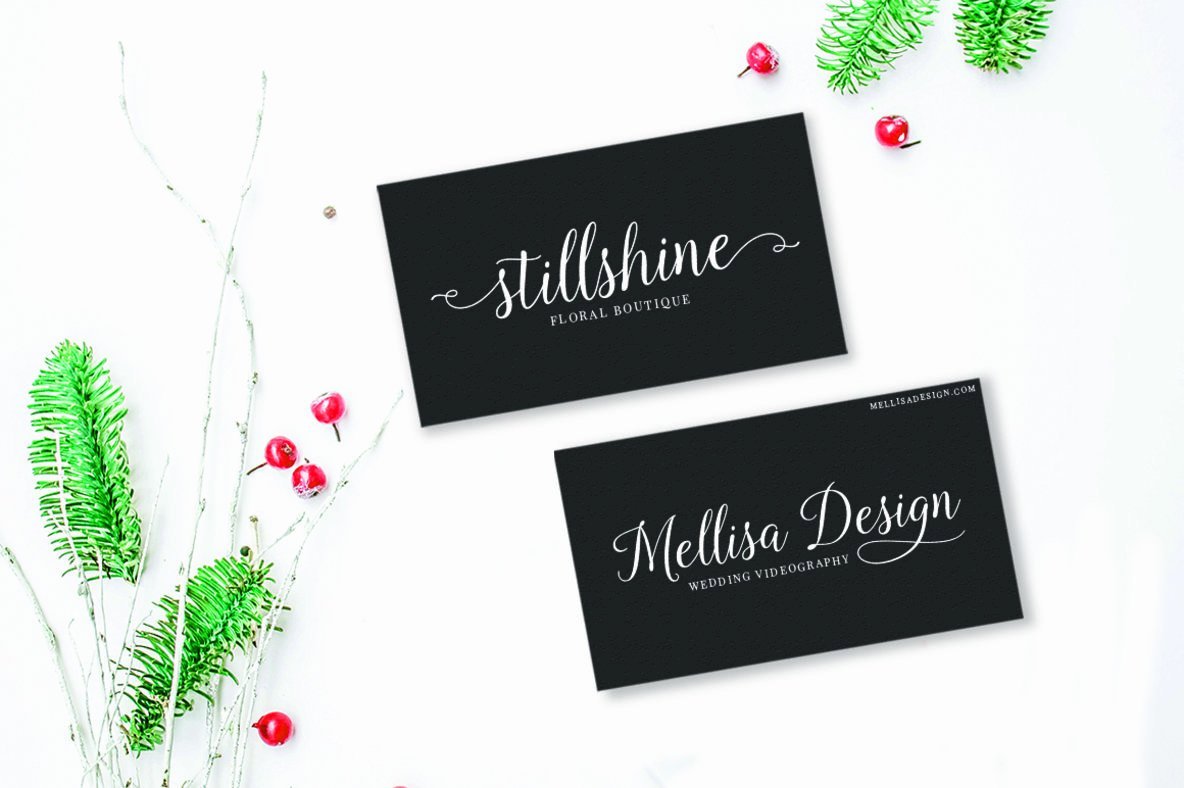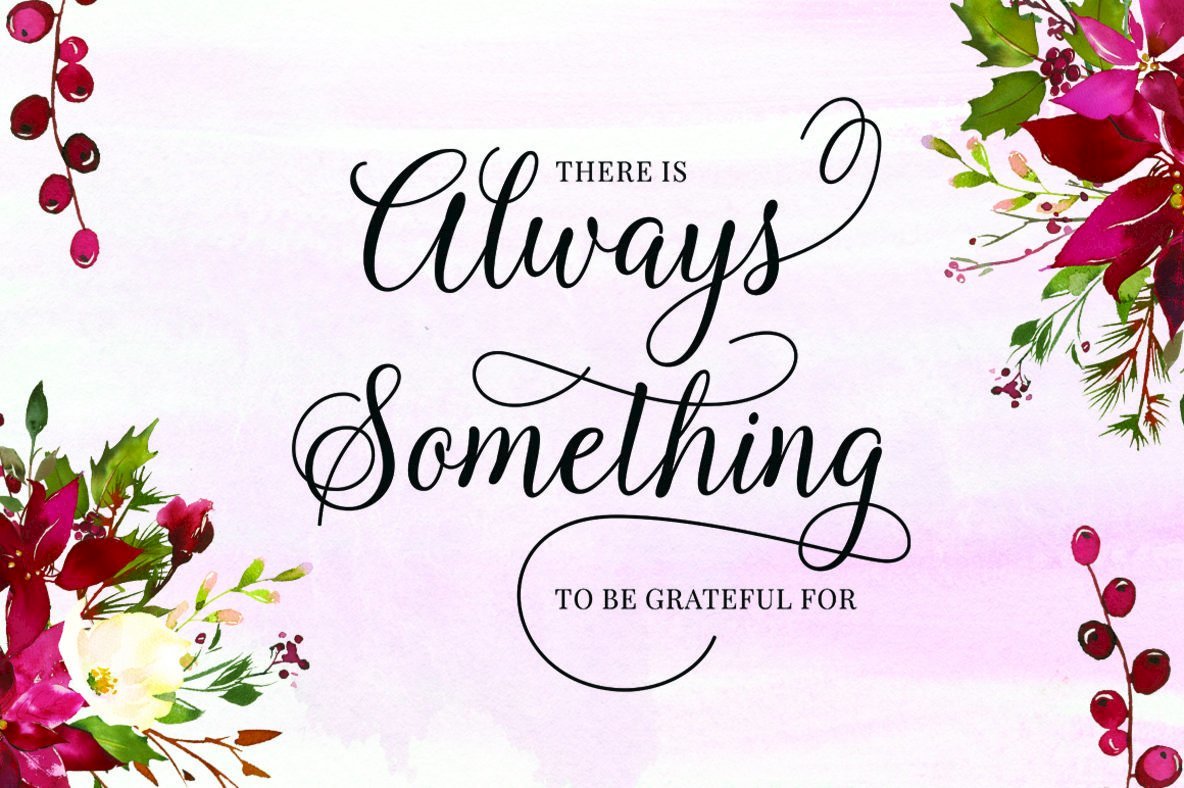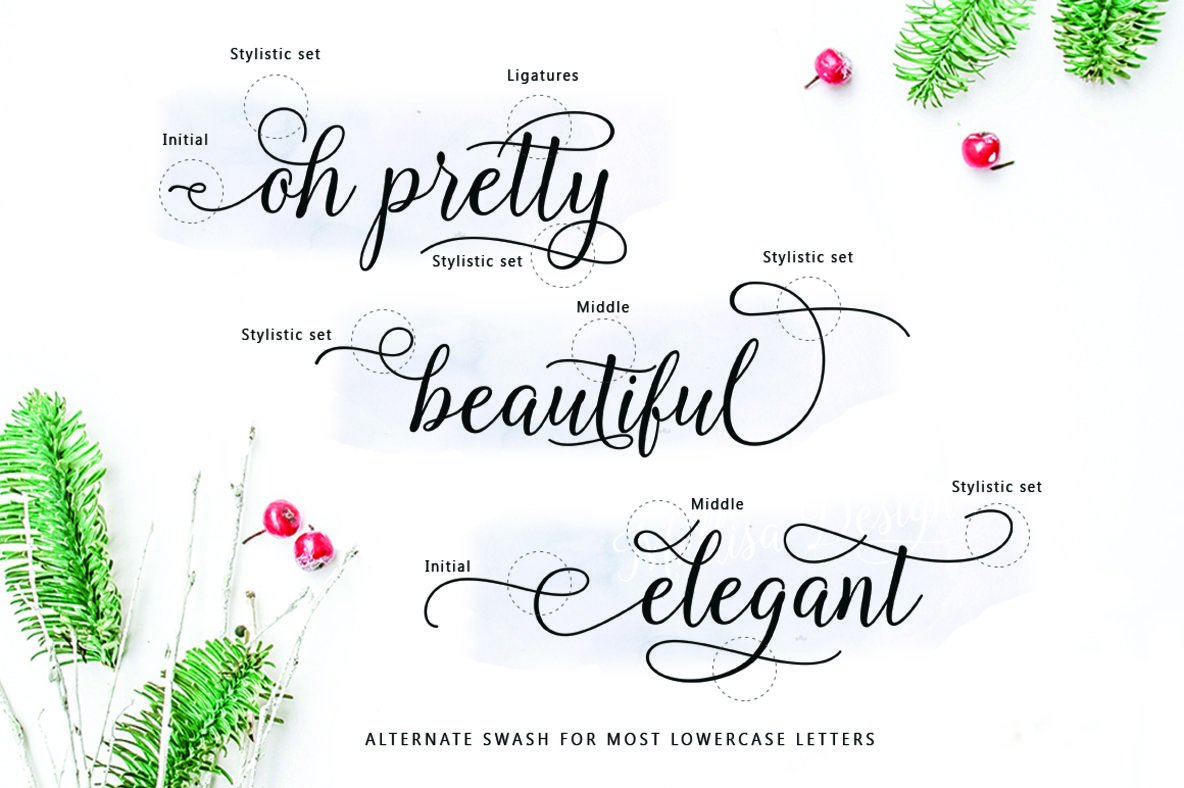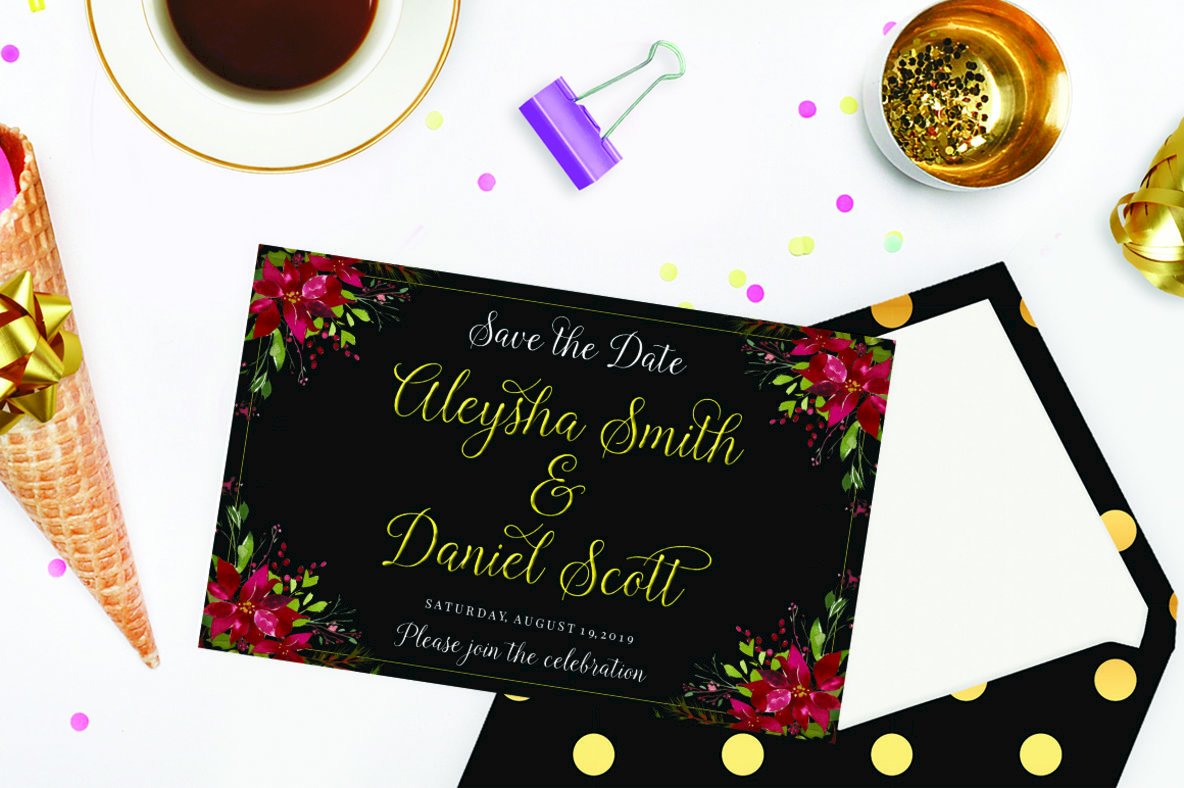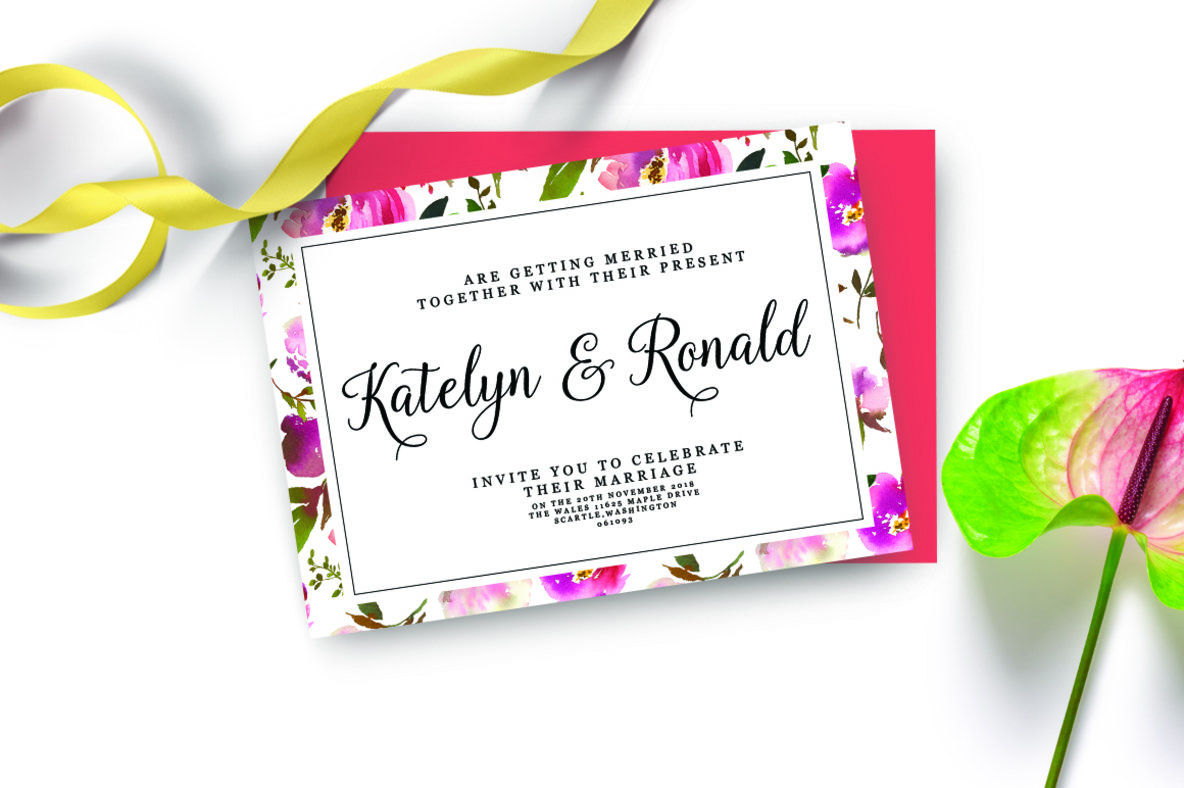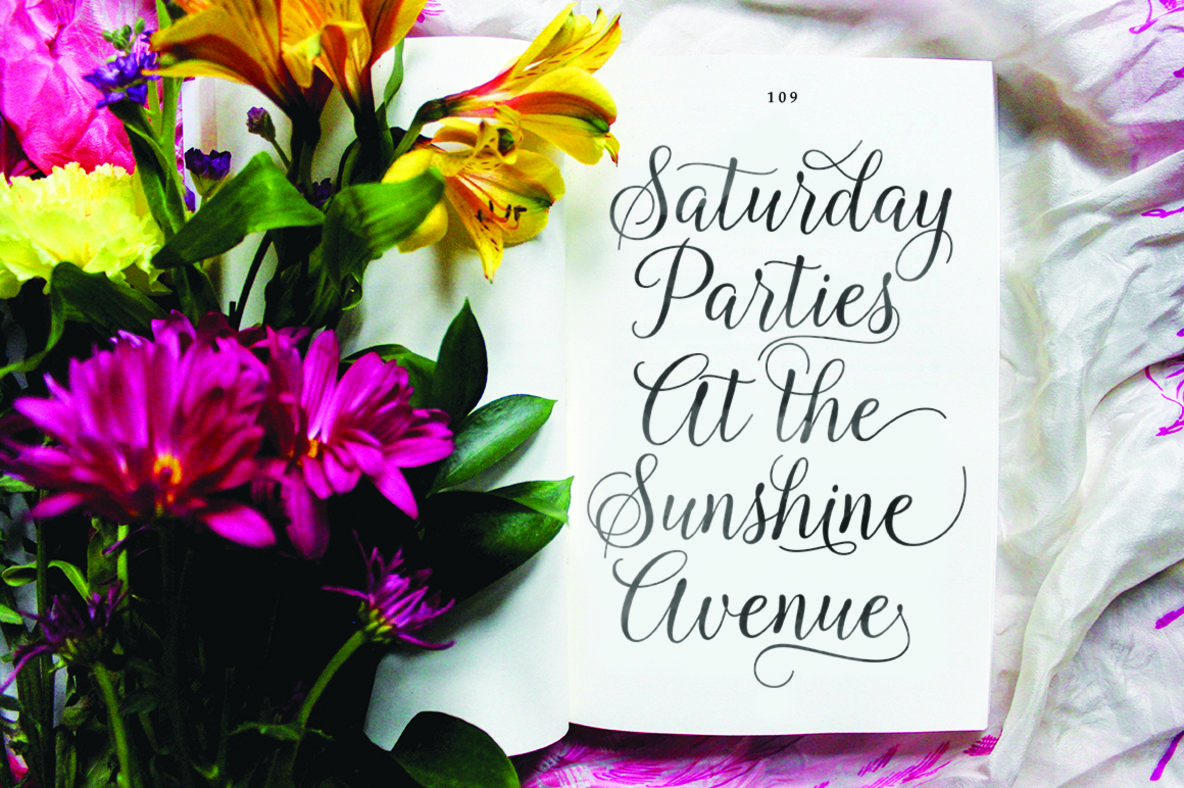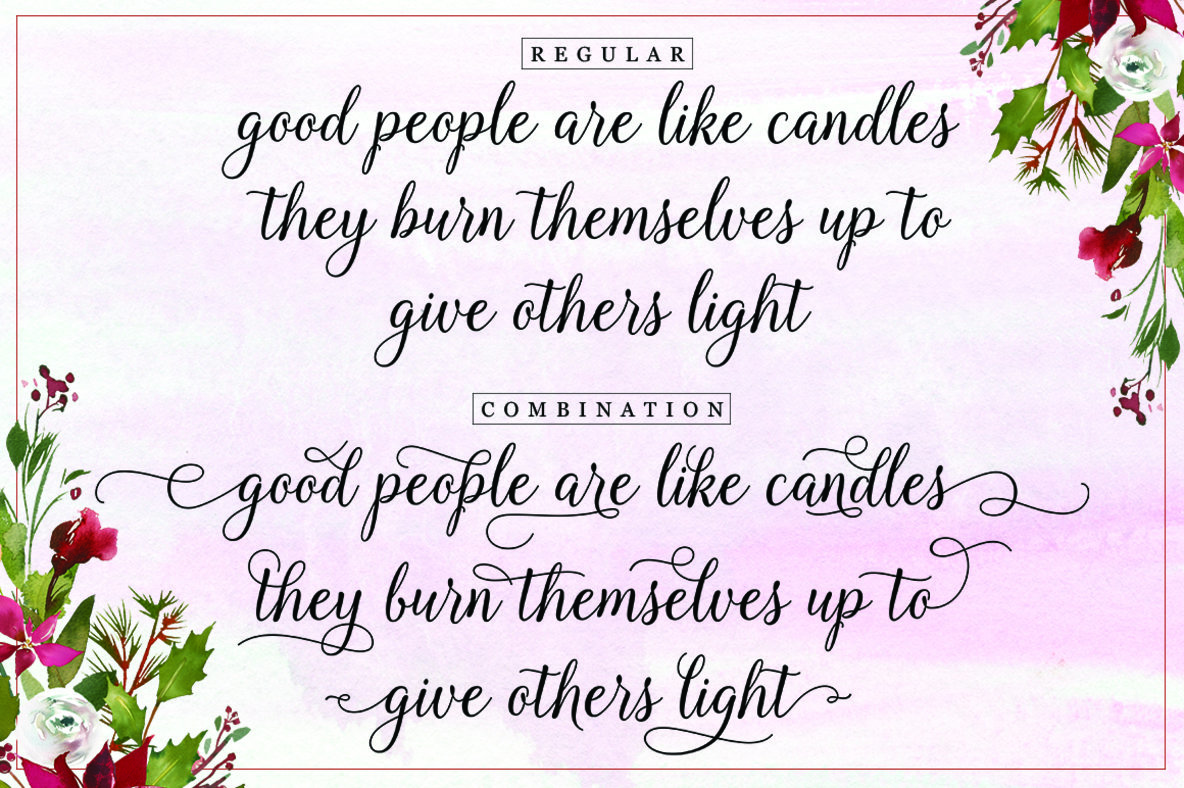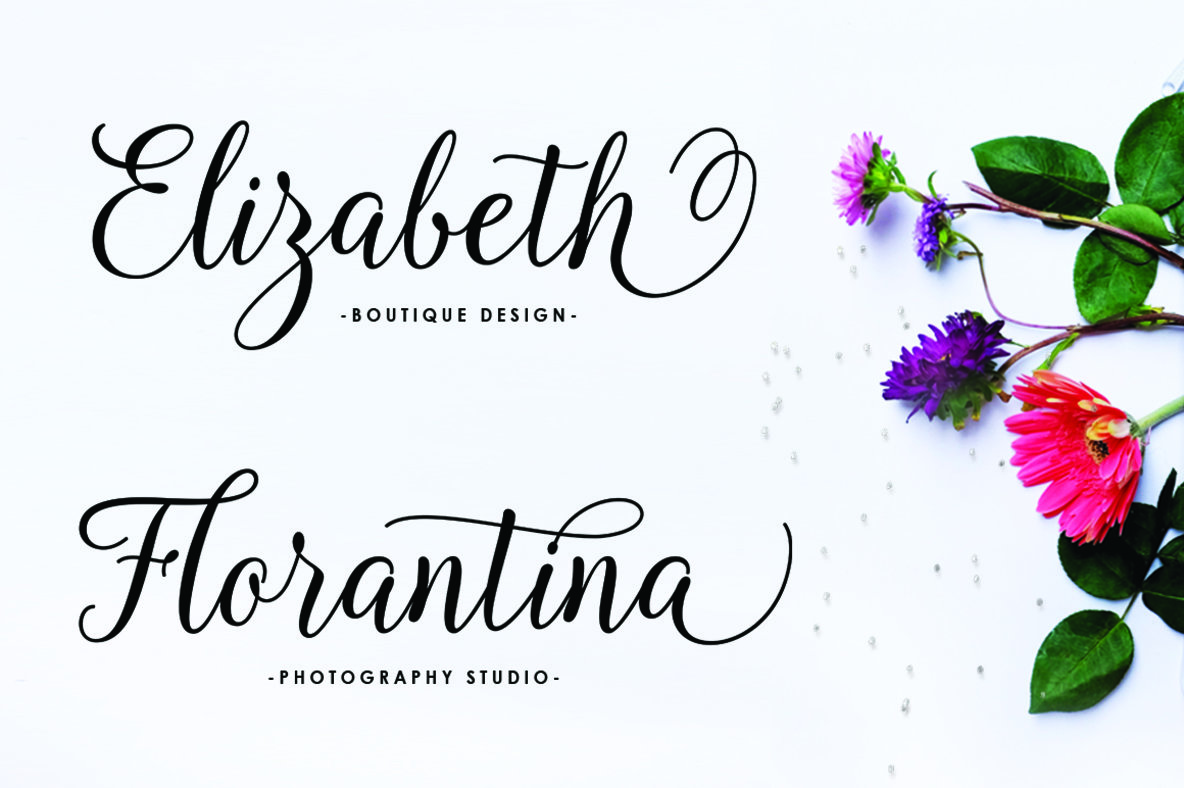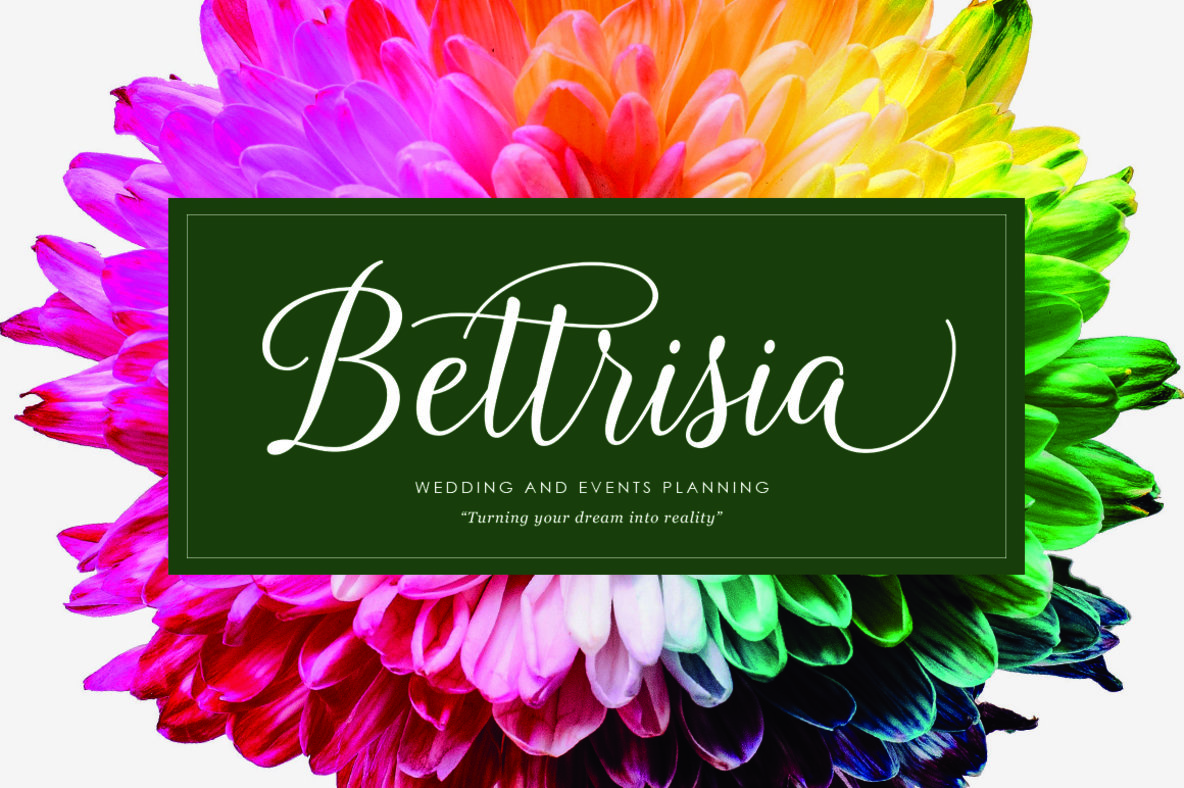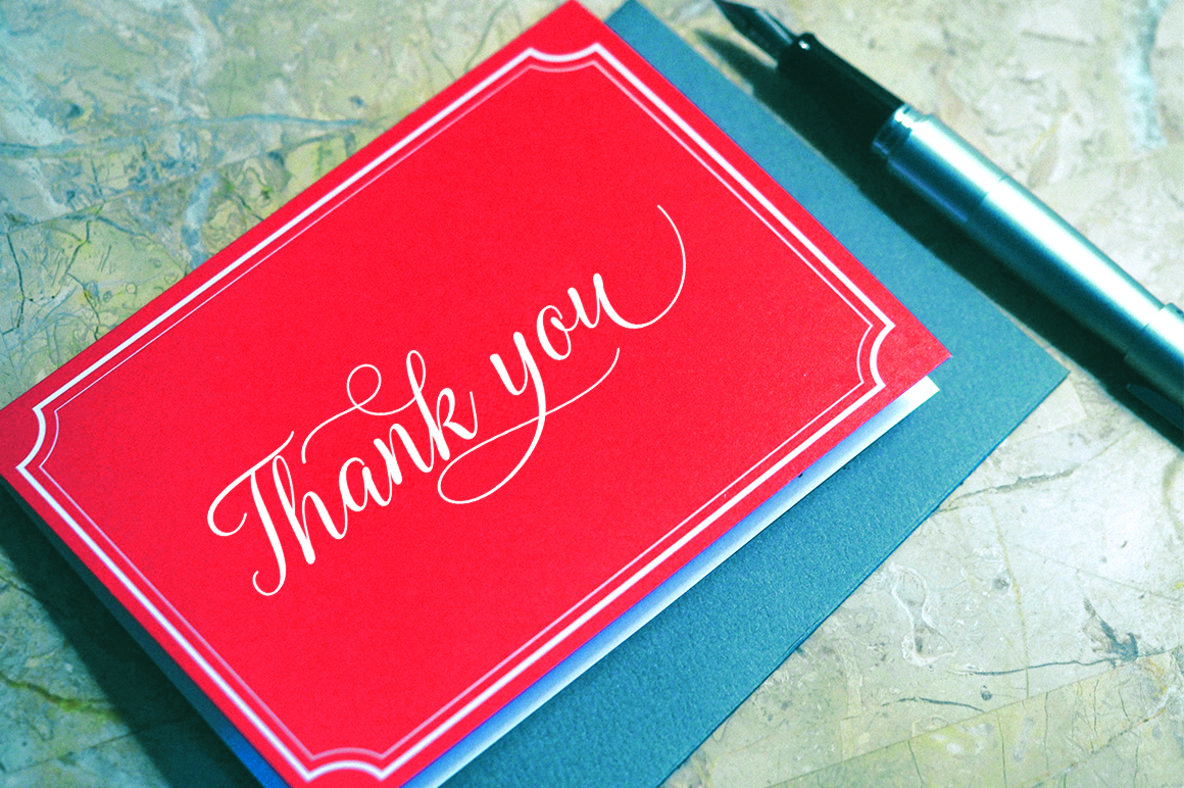
Kasandra Script Font
Kasandra Script
Embrace the sophistication and fluidity of the Kasandra Script, a modern calligraphy font that exudes elegance and versatility. With its smooth lines and classic touch, this font is ideal for projects ranging from headings and signatures to logos and wedding invitations. Its adaptability also extends to t-shirts, letterheads, signage, labels, posters, badges, and much more. Utilize compatible software such as Adobe Illustrator, Adobe Indesign, or Microsoft Word to unlock the full potential of Kasandra Script. Expand your design possibilities by accessing alternate characters through simple guides available online. Kasandra Script stands as a timeless choice for any design enthusiast looking to add a classic yet contemporary flair to their work.Kasandra Script: A Modern Calligraphy Font